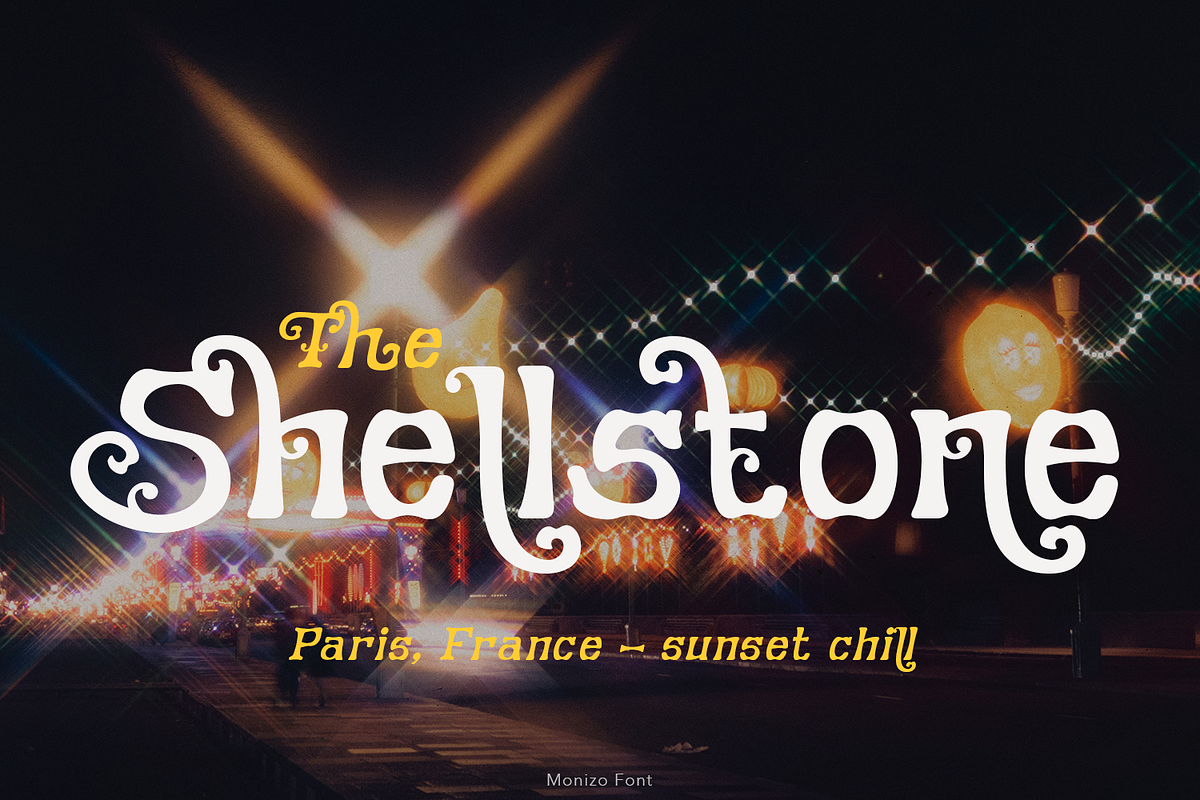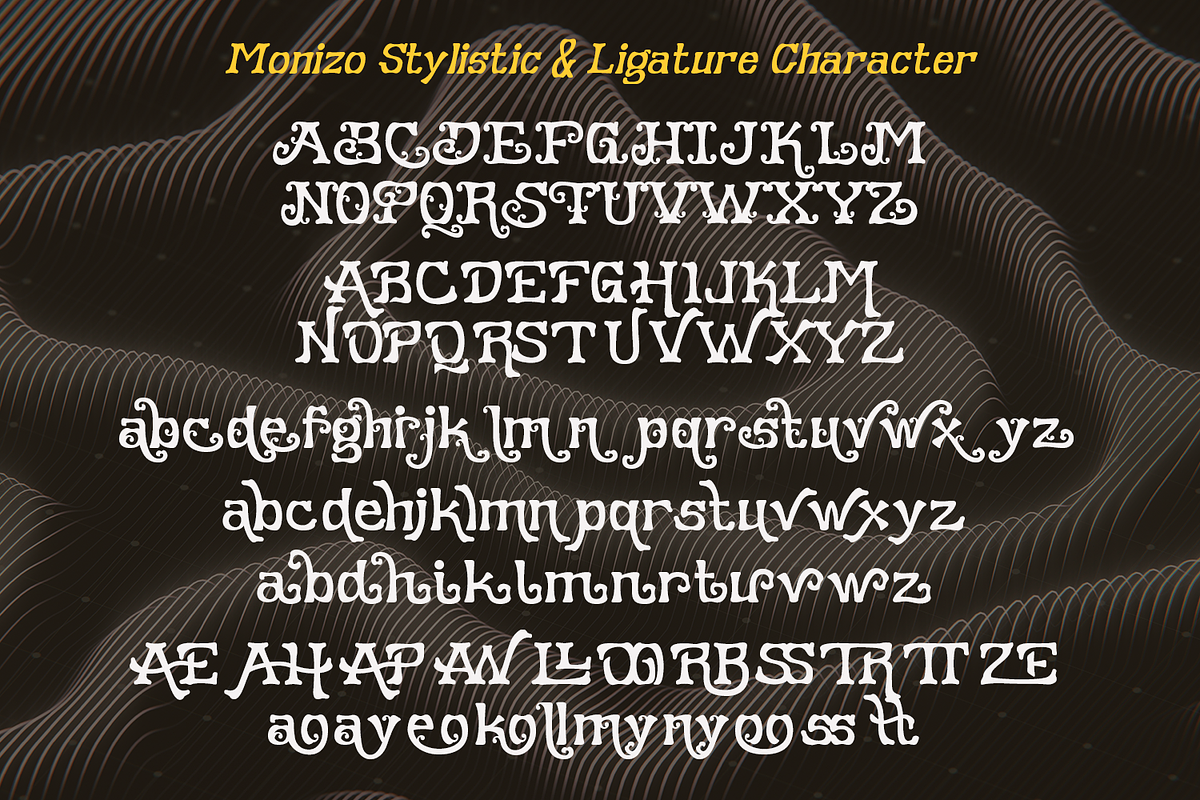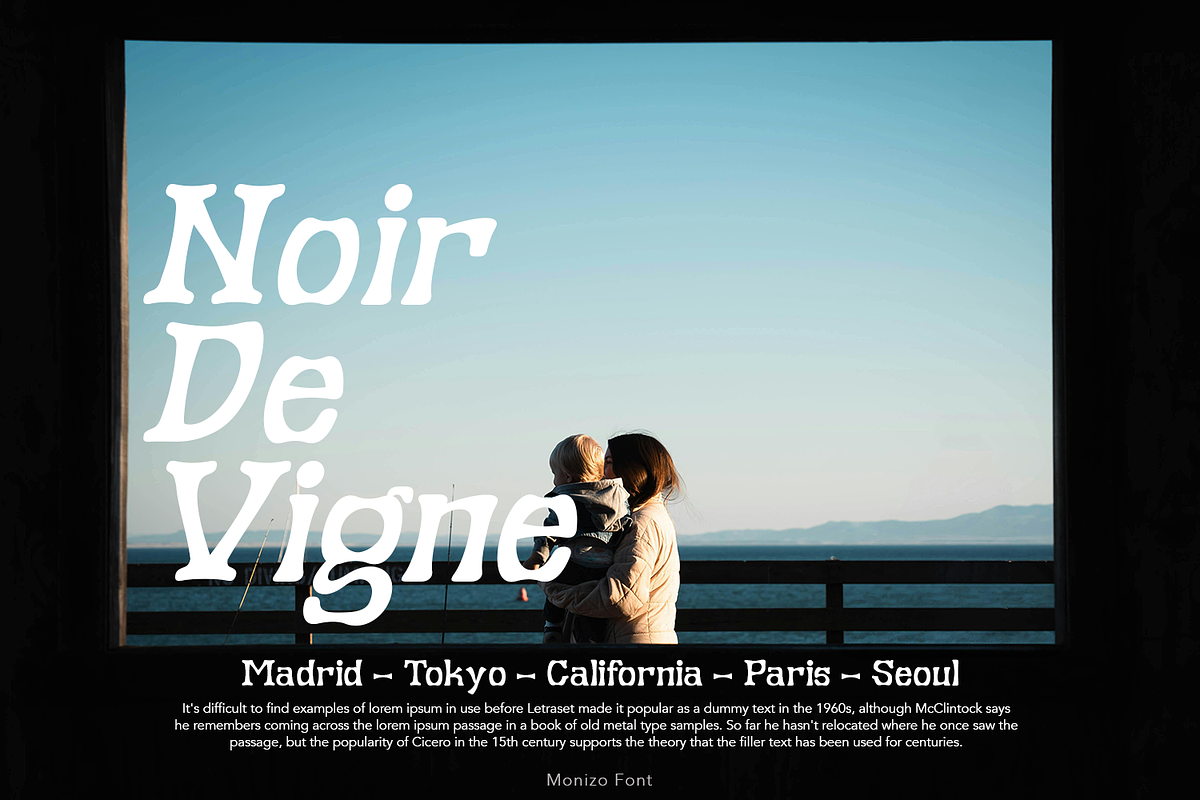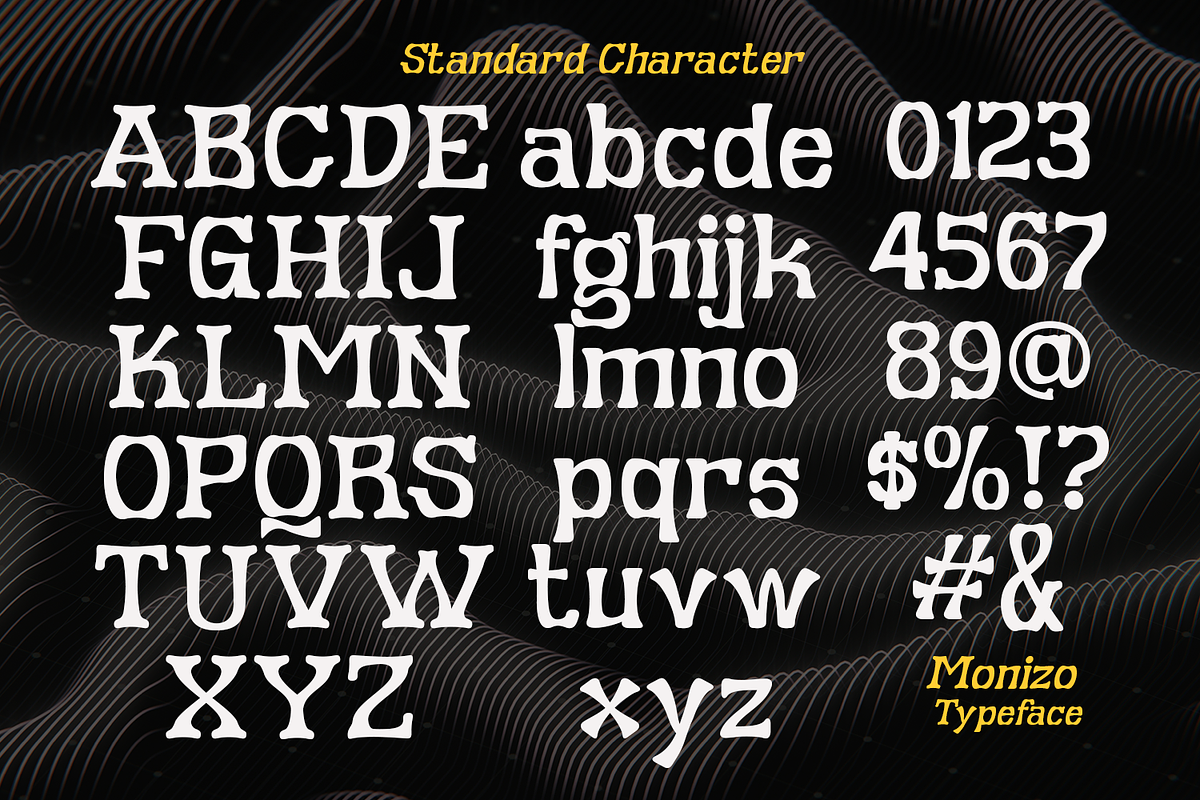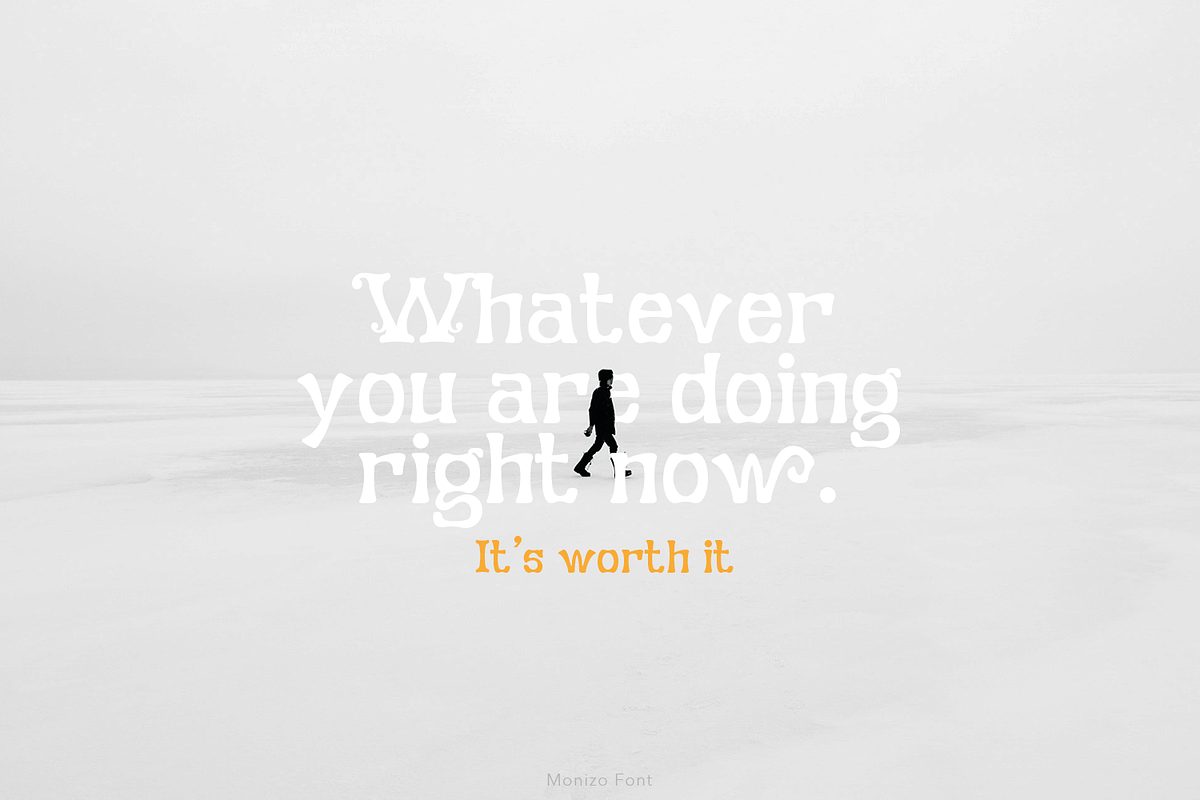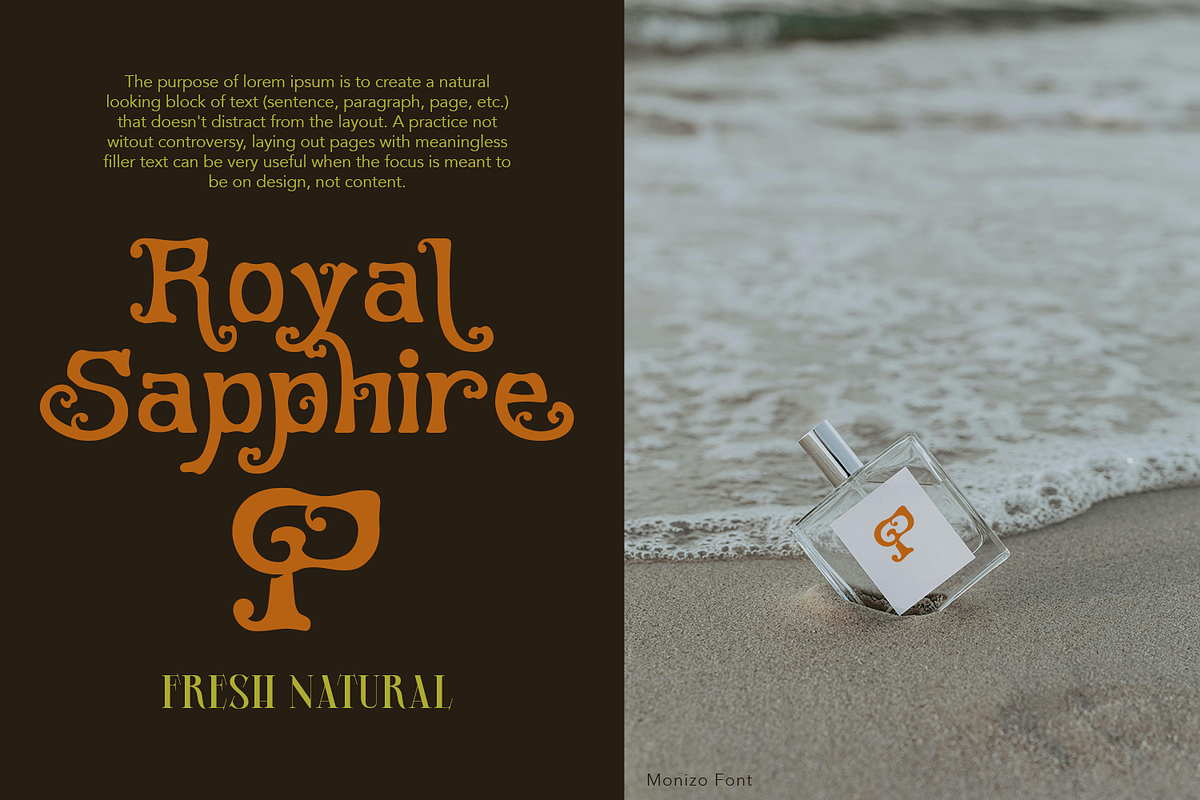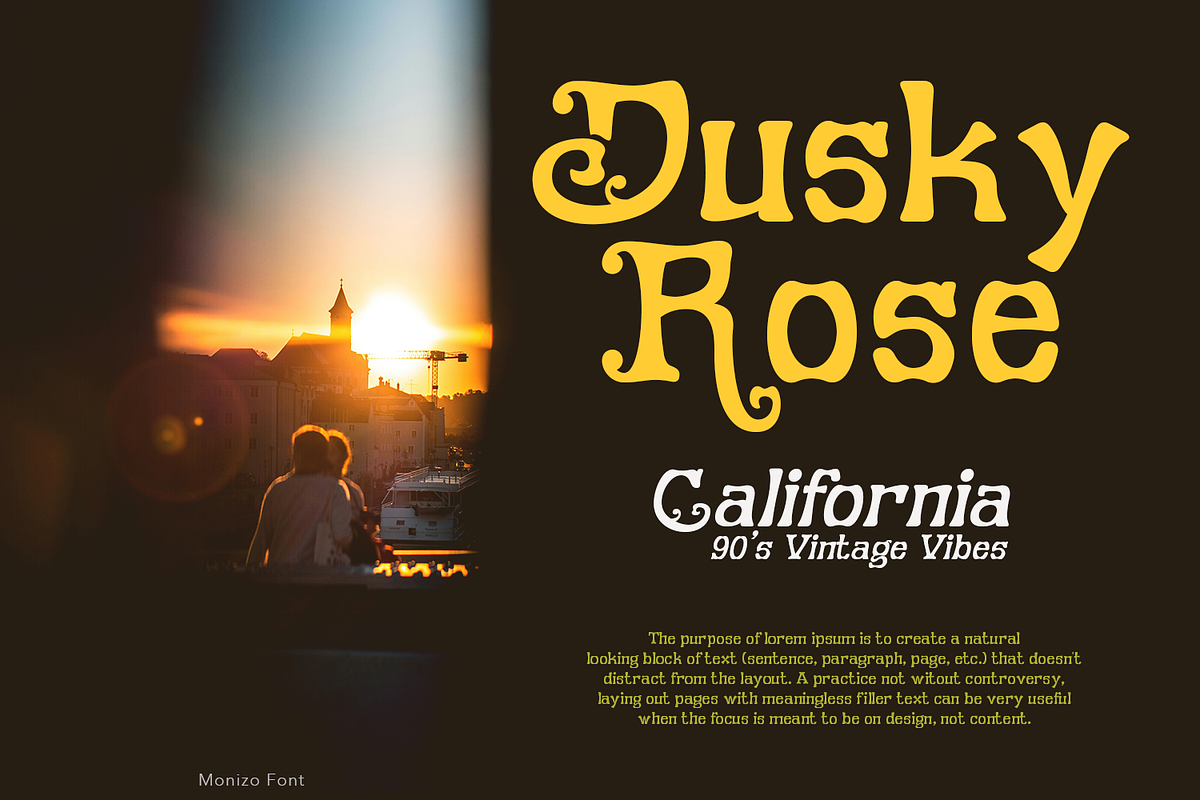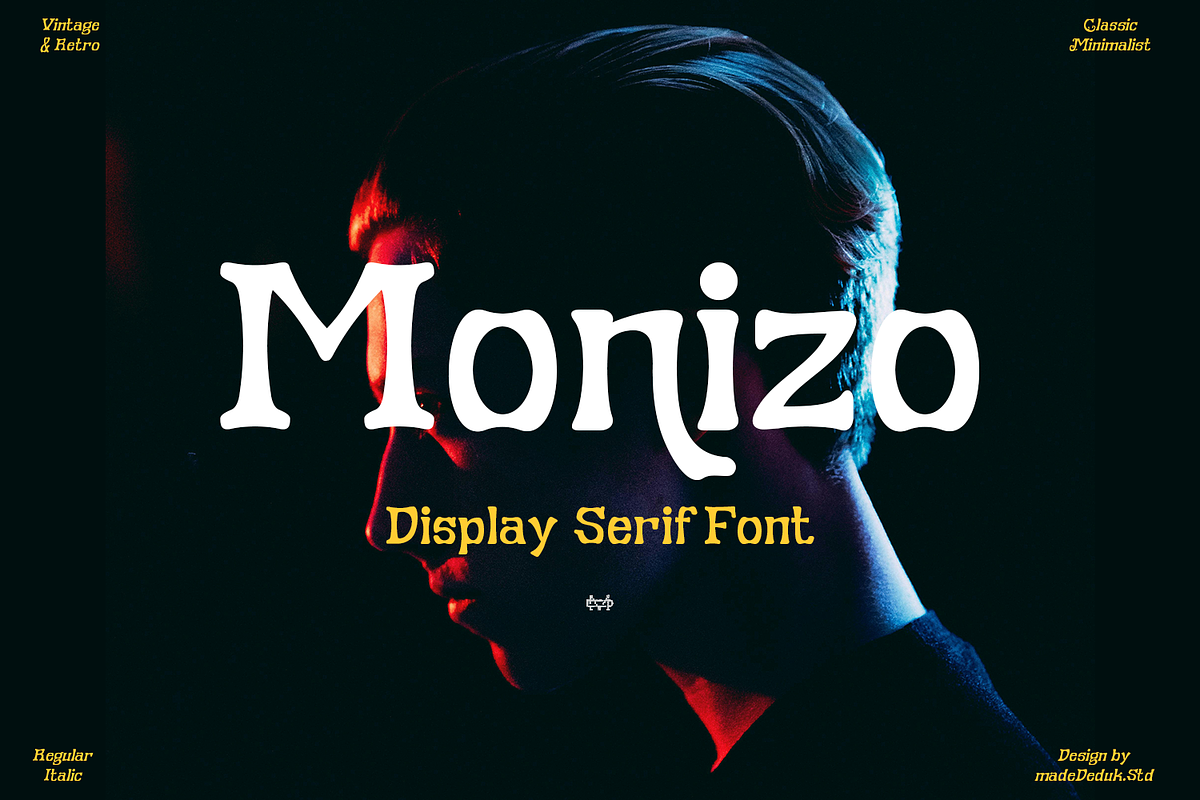
Monizo Display Serif
Monizo is a display serif with 80's retro style serif and refined you can explore and combine creating rhythm for comfortable reading. Come with single weight, legible and expressive shapes. A lot of stylish alternates characters and ligature will makes this font suitable for your any project design.